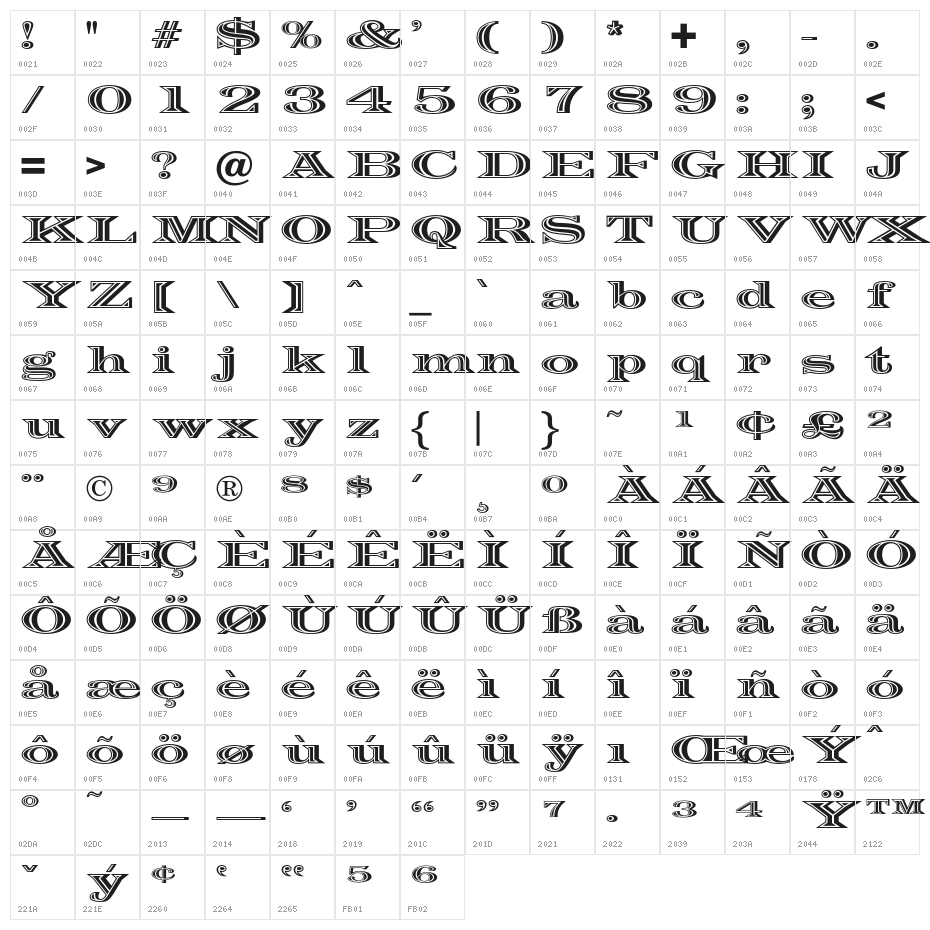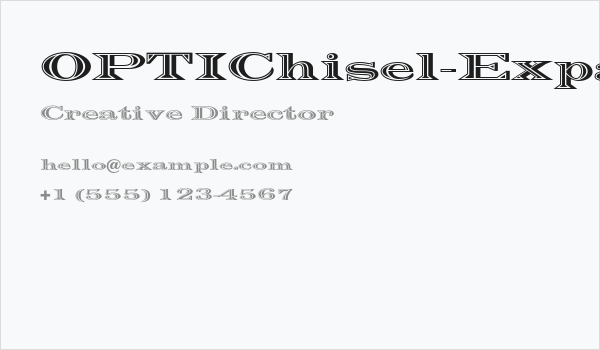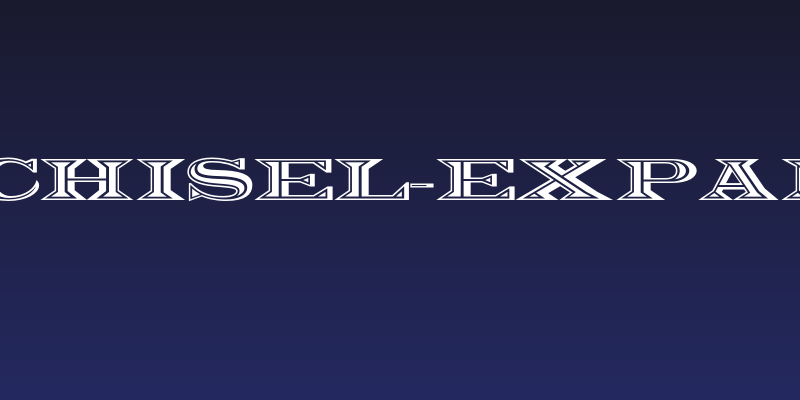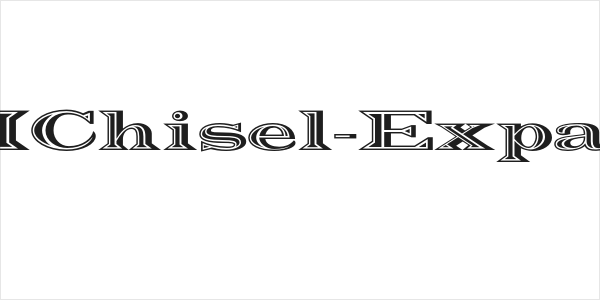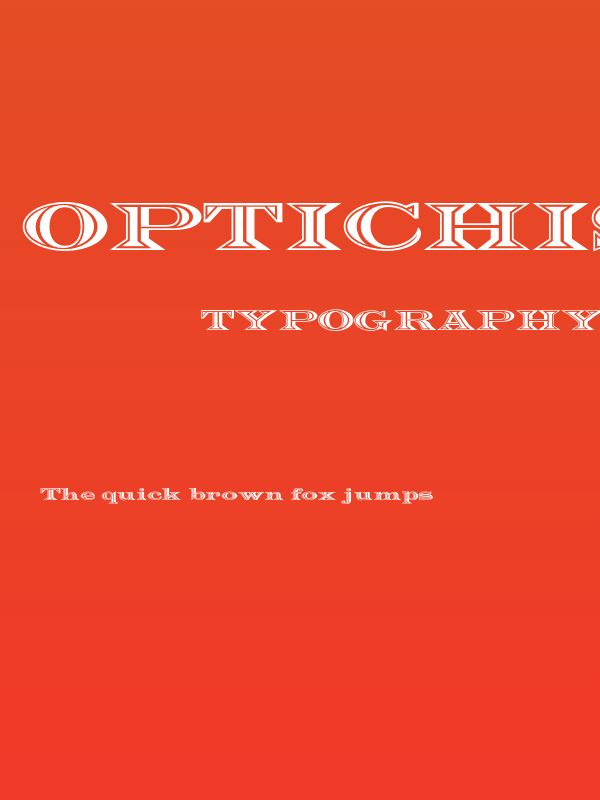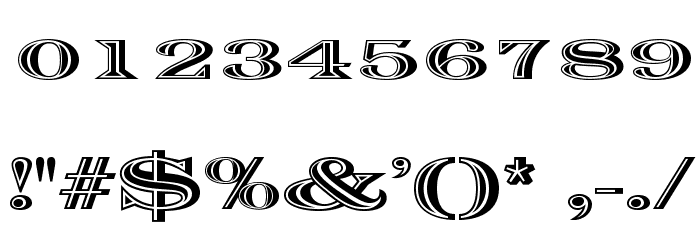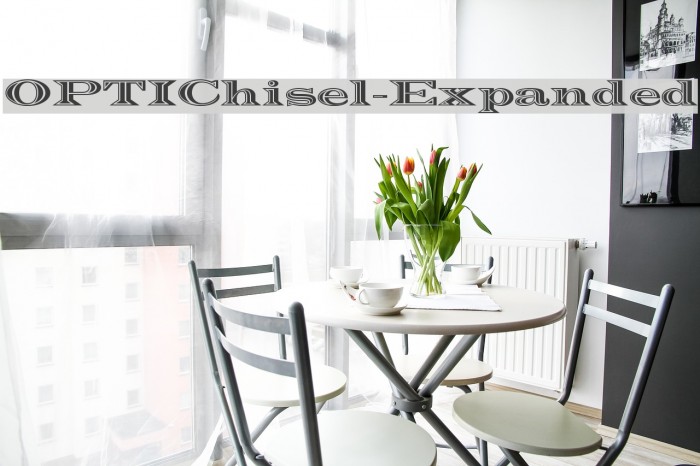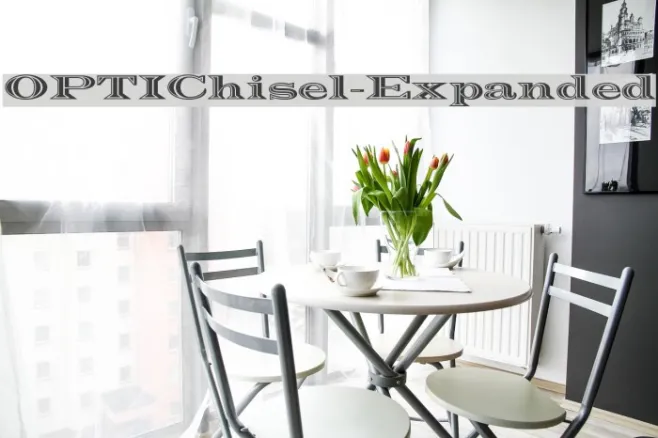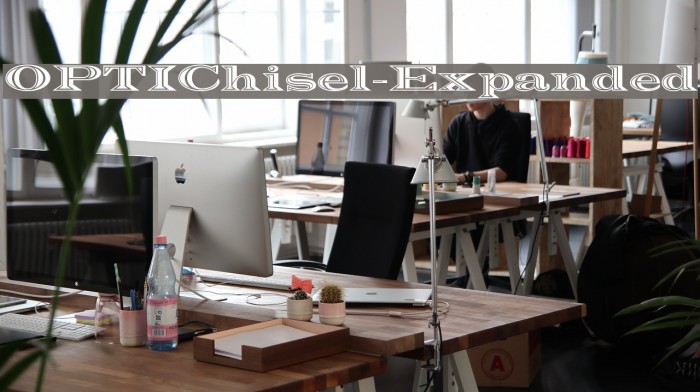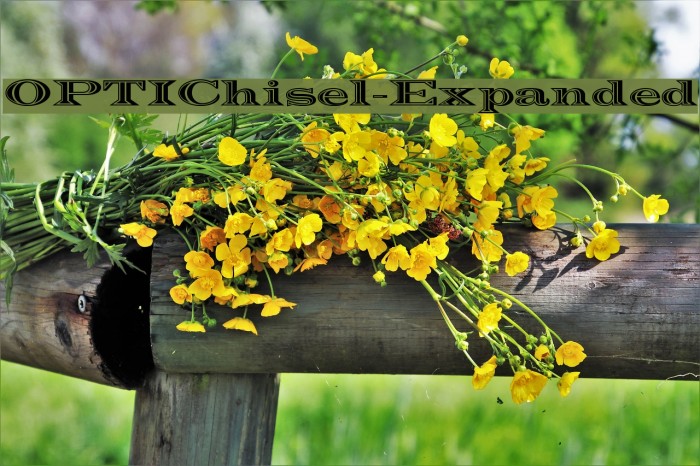
OPTIChisel-Expanded Font
OPTIChisel-Expanded Description
This font features a bold, chiseled appearance with a three-dimensional effect, created by the use of inner lines that mimic the look of engraved or carved letters. The uppercase and lowercase characters maintain a consistent style, with sharp serifs and a strong presence. The numbers and special characters follow the same design principles, ensuring uniformity across all glyphs. This font's expanded width gives it a commanding presence, making it ideal for attention-grabbing headlines or titles. The intricate detailing in each character adds a decorative touch, making it suitable for projects that require a classic yet bold aesthetic.
| Overall Style | Classic, Decorative |
| Proposed Projects | Ideal for logos, posters, signage, and any design requiring a strong, decorative typeface. |